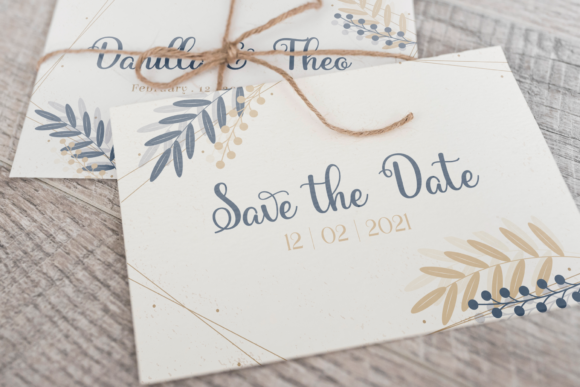
Bride Font
db-ku.com - Script & Handwritten -- Bride is a modern, delicate and incredibly beautiful handwritten font. Fall in love with its authentic feel and use it to create gorgeous wedding invitations, beautiful stationary art, eye-catching social media posts, and cute greeting cards.